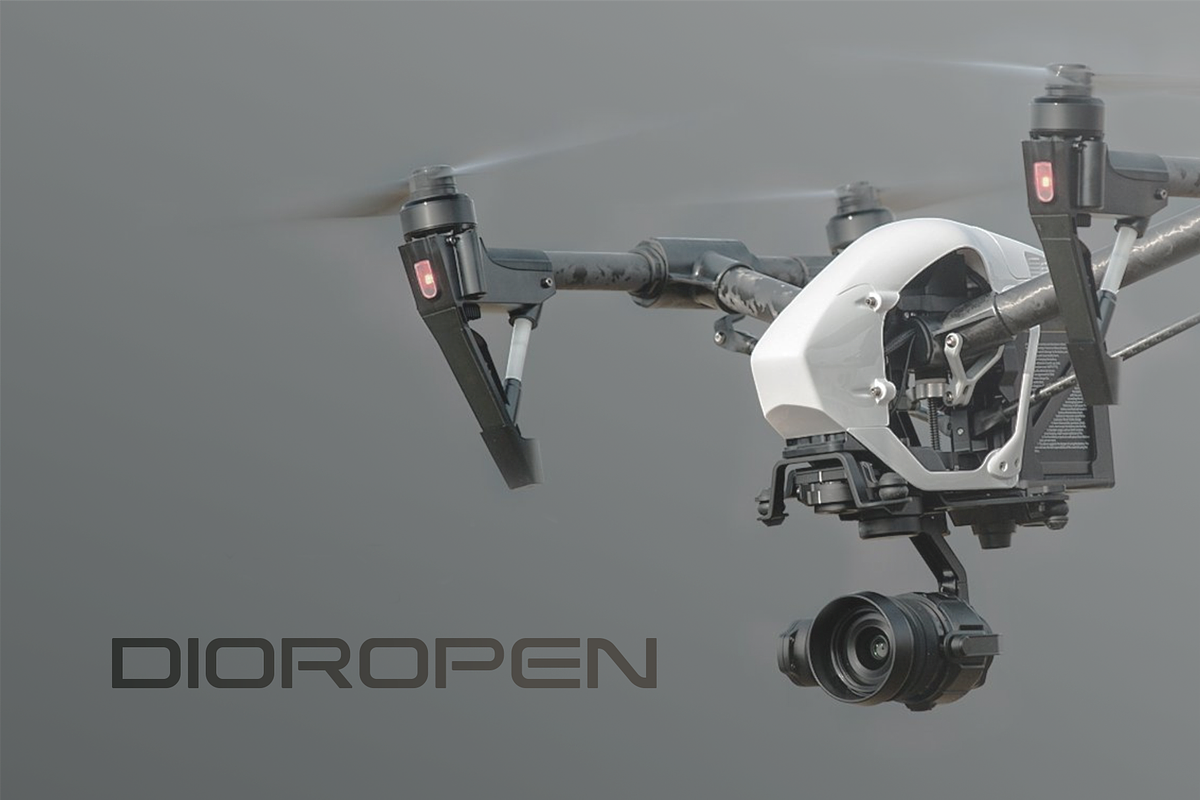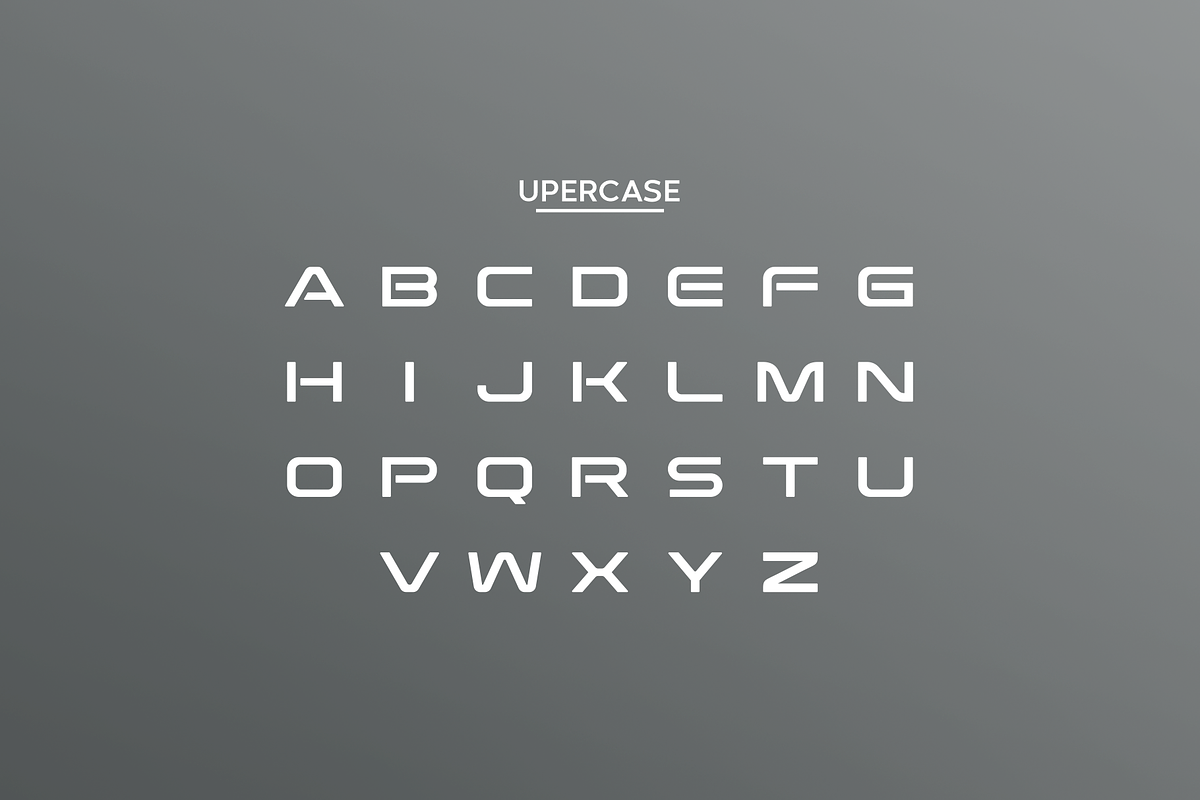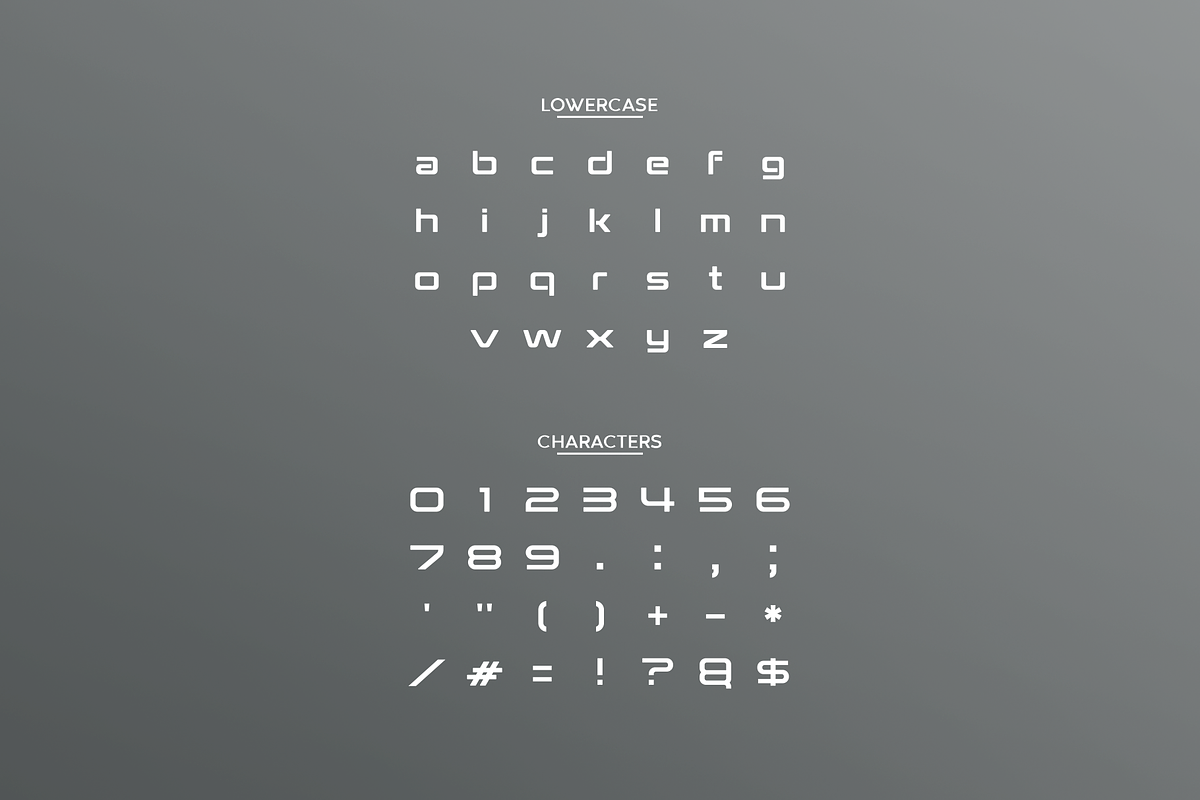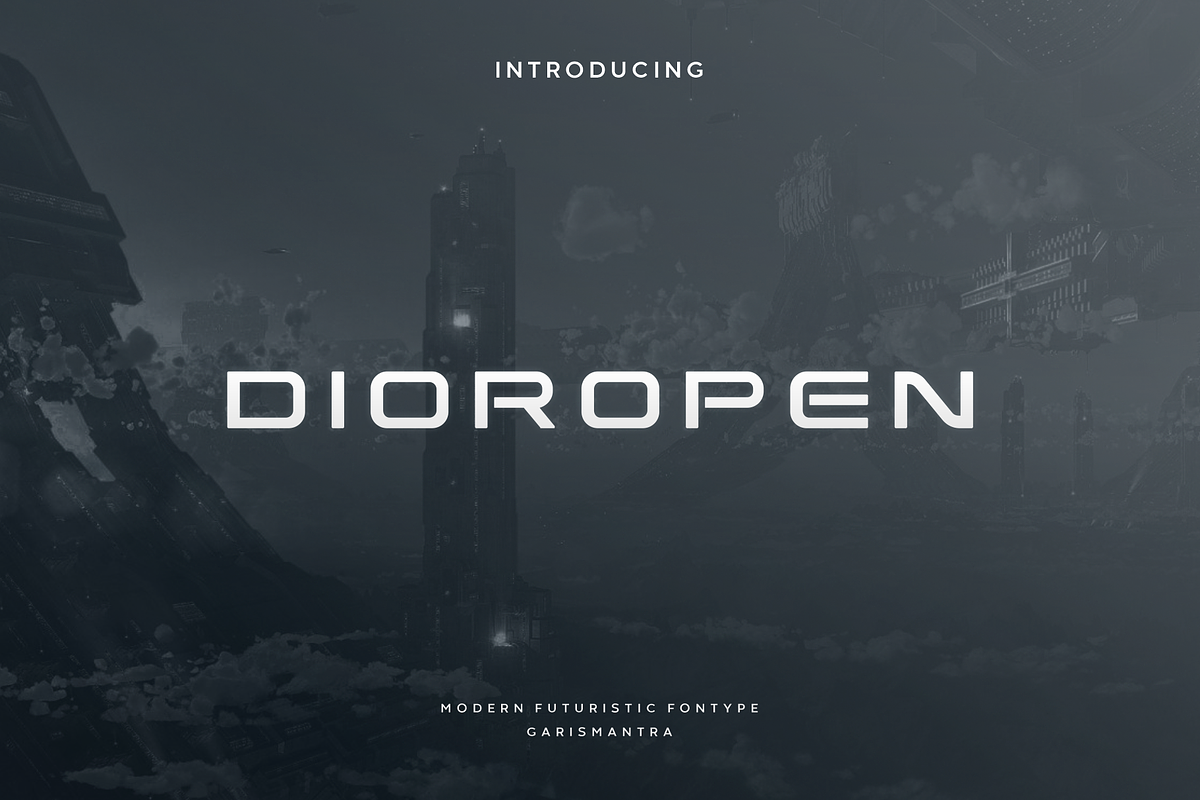
Dioropen
Dioropen is a modern, elegant and futuristic display font. This font would be ideal for writing web designs, business cards, or pretty much anything else that requires a unique touch.